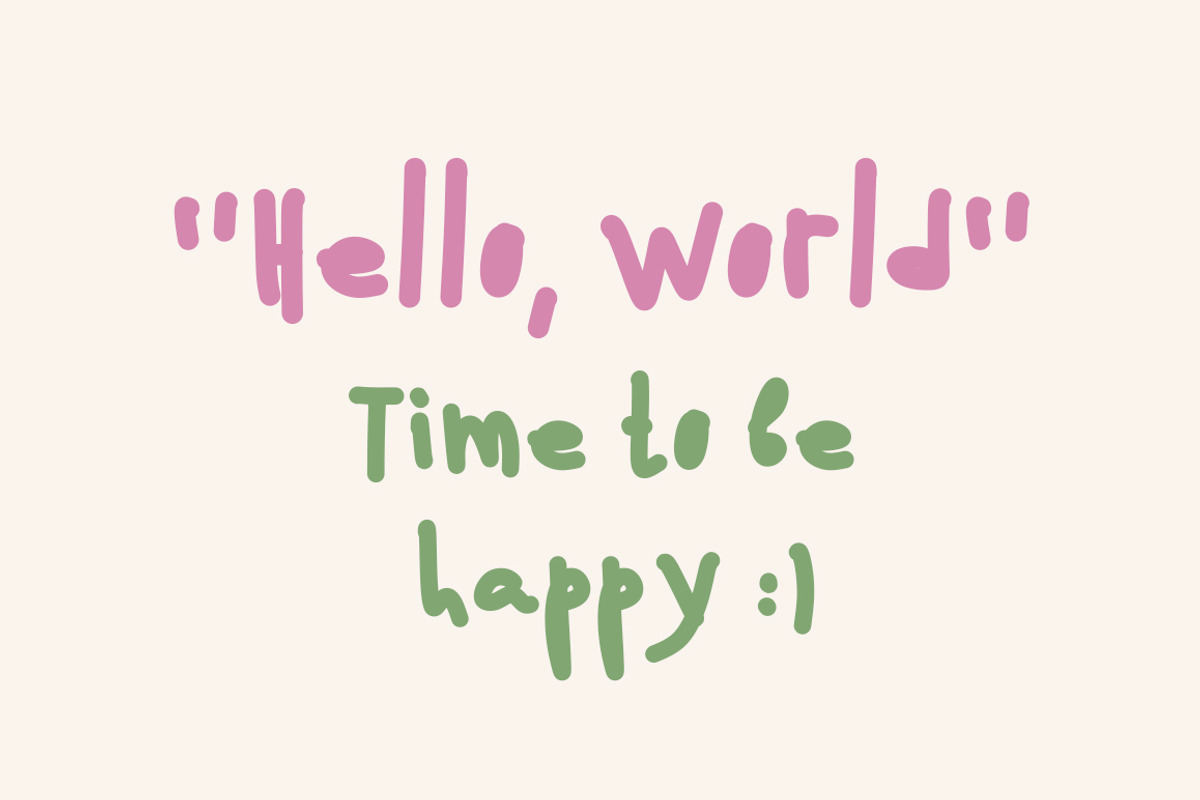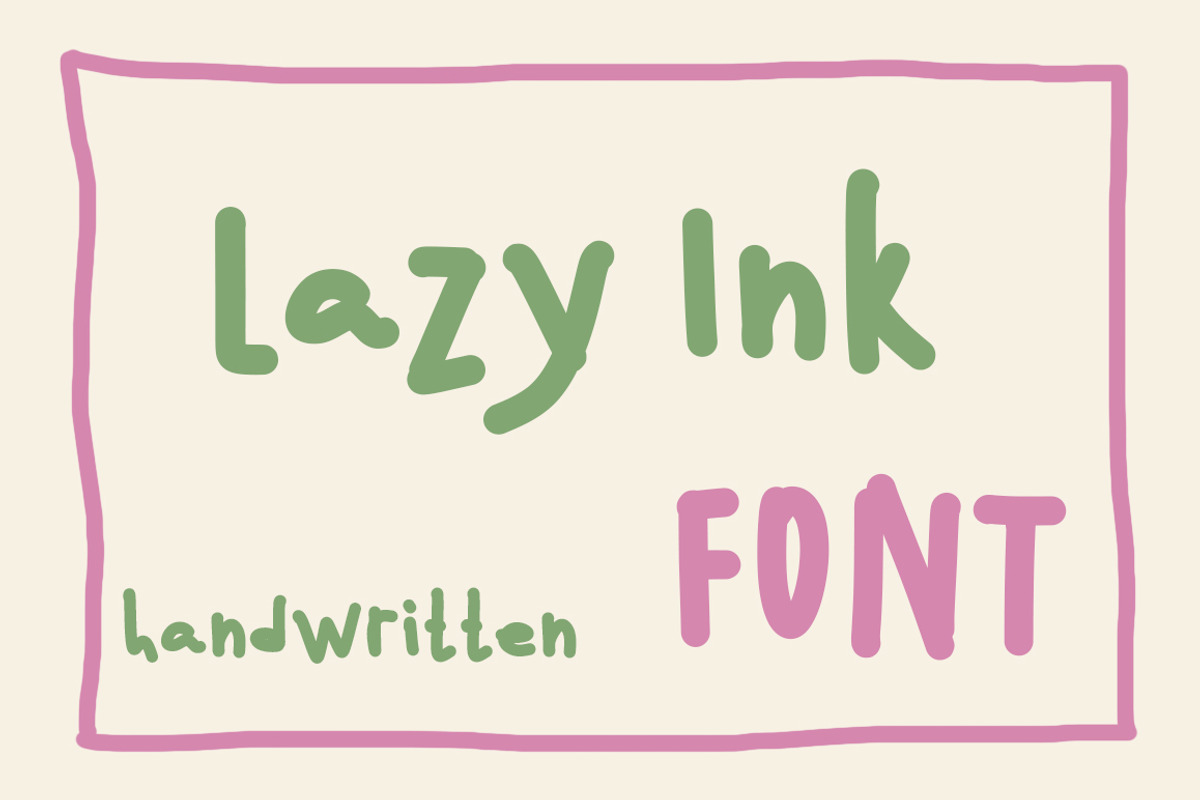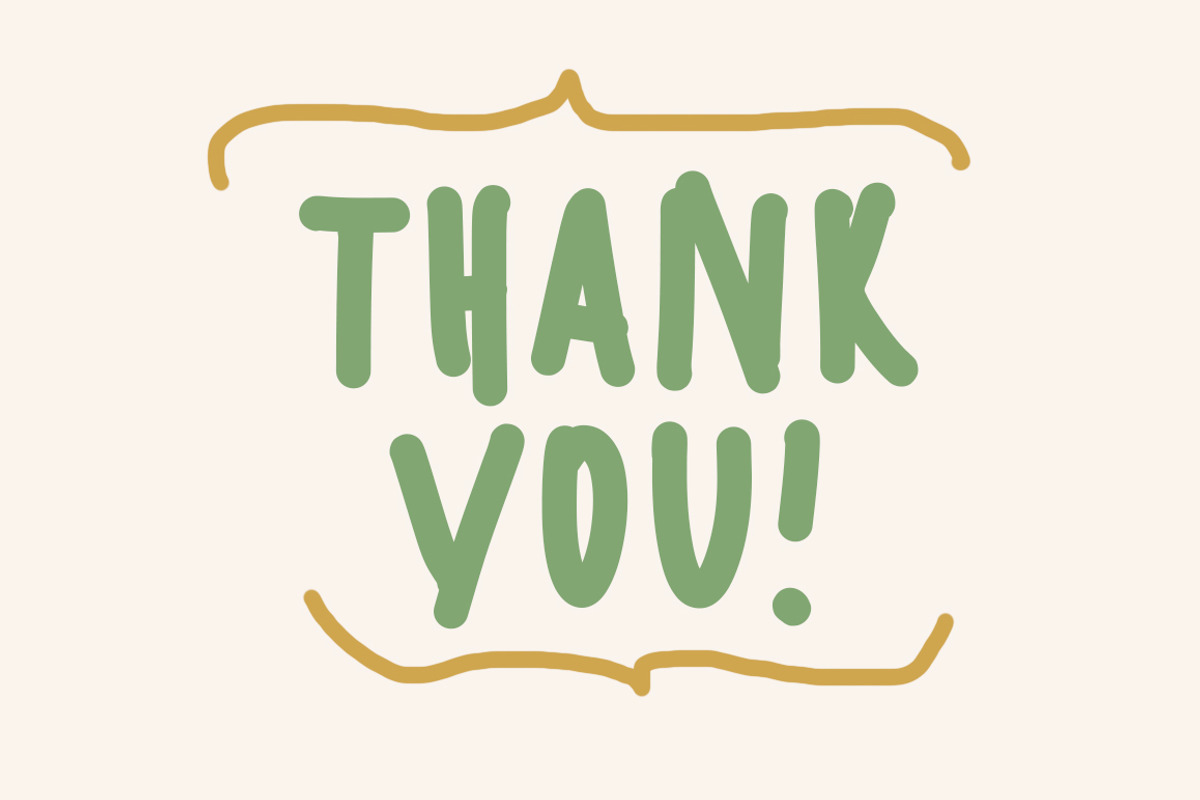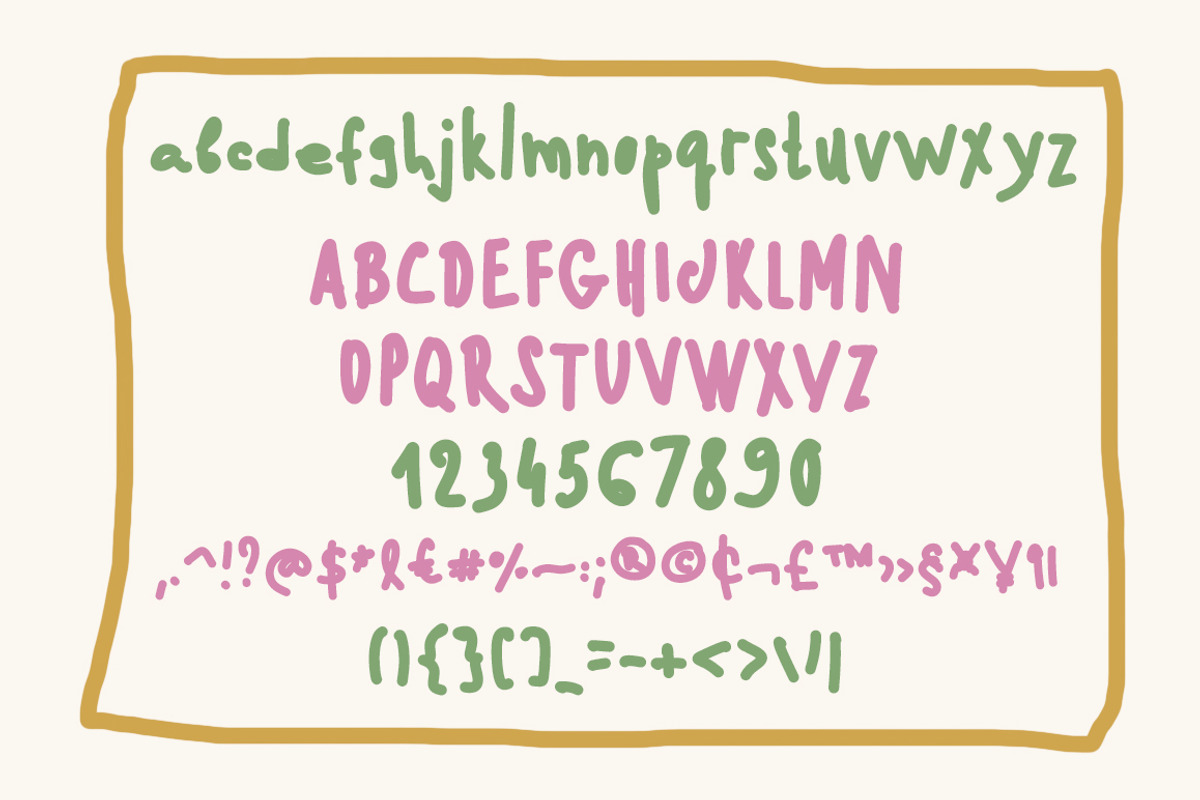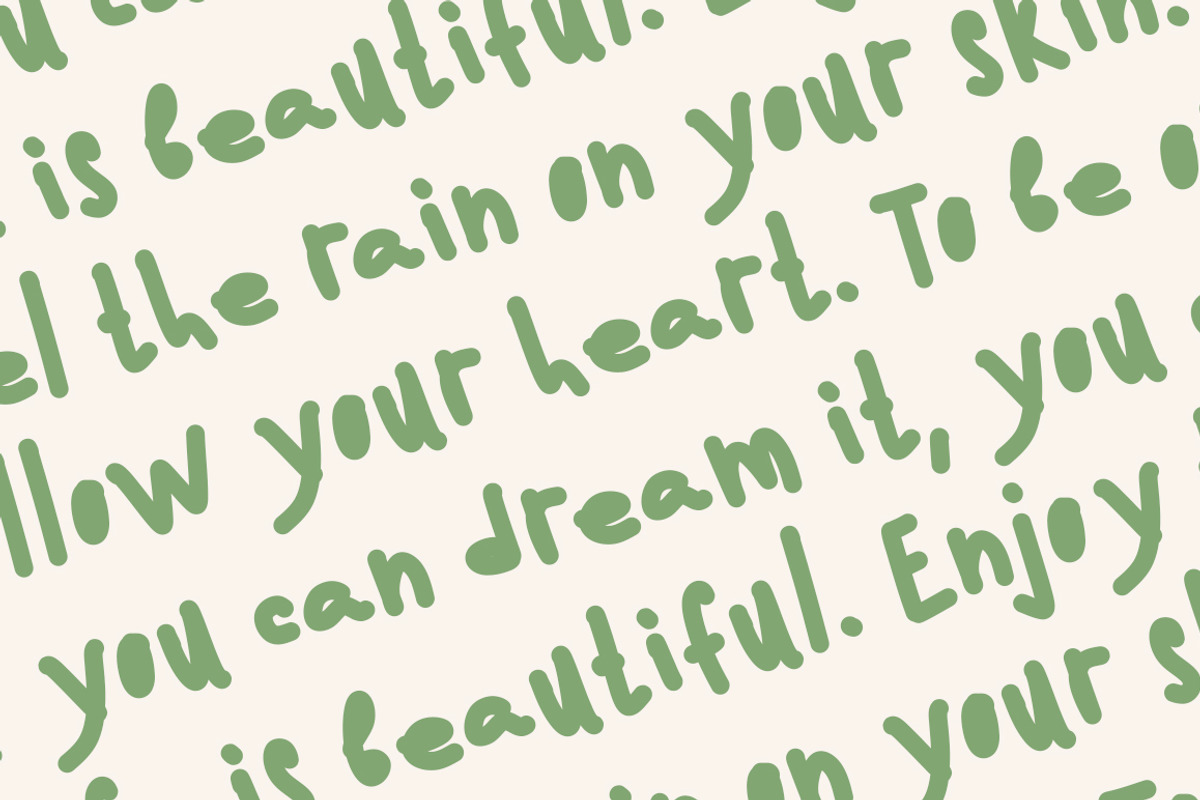
Lazy Ink handwritten font
Cute, playful, slightly naughty bold font and lively character. || Its dynamic lines, as if left in a hurry by a marker, create an effect of ease and energy. The font perfectly conveys the mood of street culture, creativity and freedom of expression.
This font is perfect for posters, covers, children's books, logos, merchandise, creative social media headlines, as well as designs related to music, street fashion, art projects, and youth communications. It will add a touch of flair and personality to any visual solution.